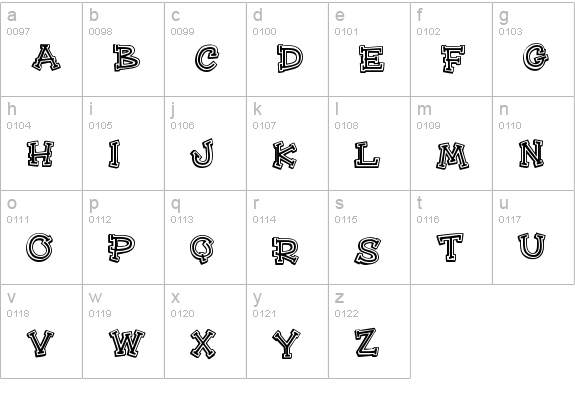
HeeHaw Regular Font Details
HeeHaw Regular is the standard, neutral variant in the HeeHaw typeface family \xE2\x80\x94 well suited to general body text, paragraphs, and standard typographic work.
HeeHaw Regular font is a delightful and playful typeface that brings a cheerful and lively touch to any design project. With its charmingly rounded letterforms and quirky character variations, this font is perfect for adding a touch of whimsy to invitations, posters, branding, and more. But what makes HeeHaw Regular font even more appealing is the fact that it is absolutely free! Yes, you heard that right - you can download this fantastic font without spending a penny. It is available for free at FontsMarket.com, where you can easily access and download it to use in your creative endeavors. Whether you're a professional designer looking to add some fun to your projects or an amateur enthusiast exploring the world of typography, HeeHaw Regular font is a must-have. Its versatility and unique personality make it suitable for a wide range of applications, from children's books to greeting cards, logos to social media graphics. So why wait? Get your hands on HeeHaw Regular font today, and let your creativity run wild. With its free availability and extraordinary charm, this font is sure to make your designs stand out and bring a smile to everyone's face. Download it now at FontsMarket.com and let the fun begin!